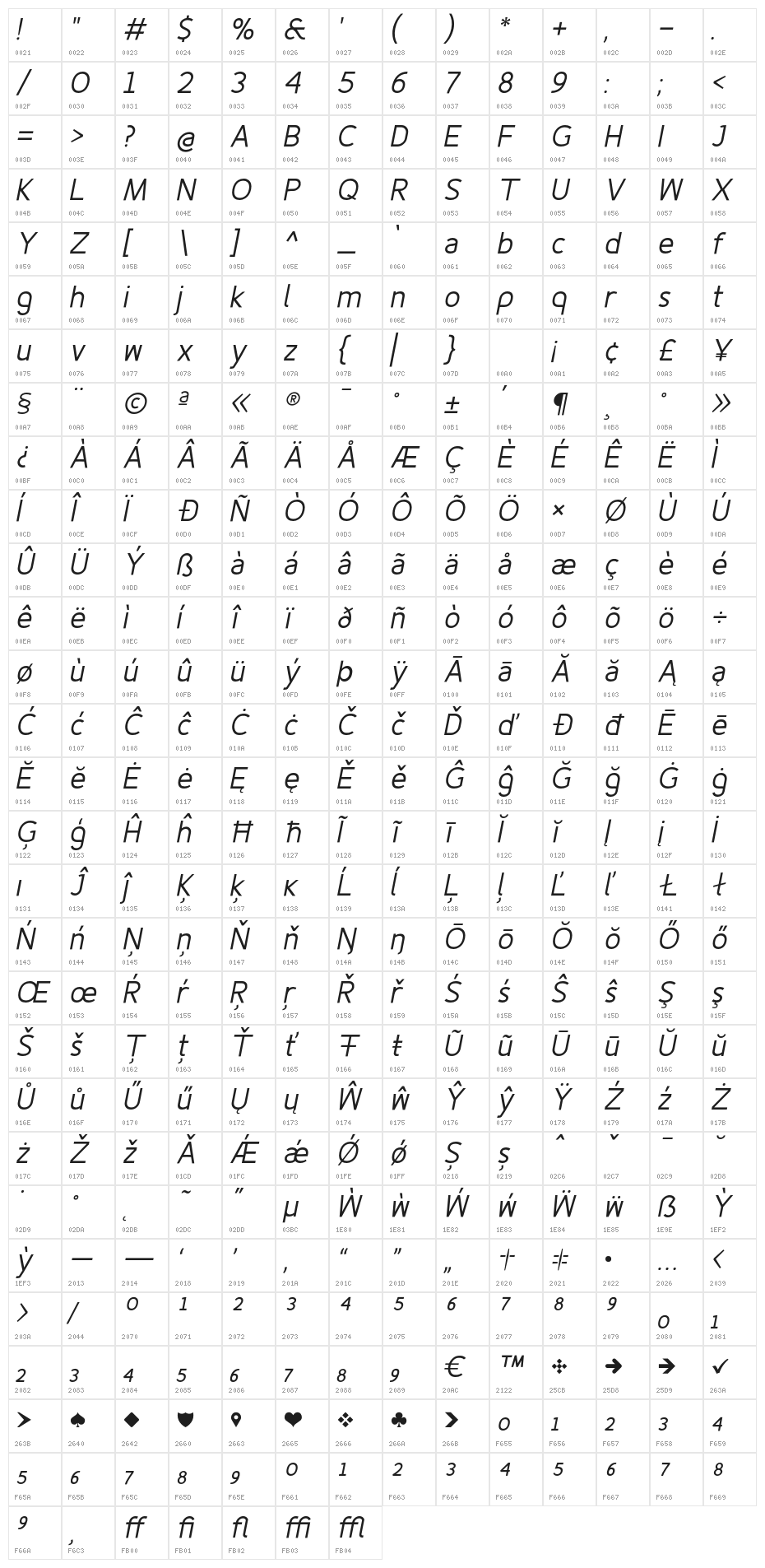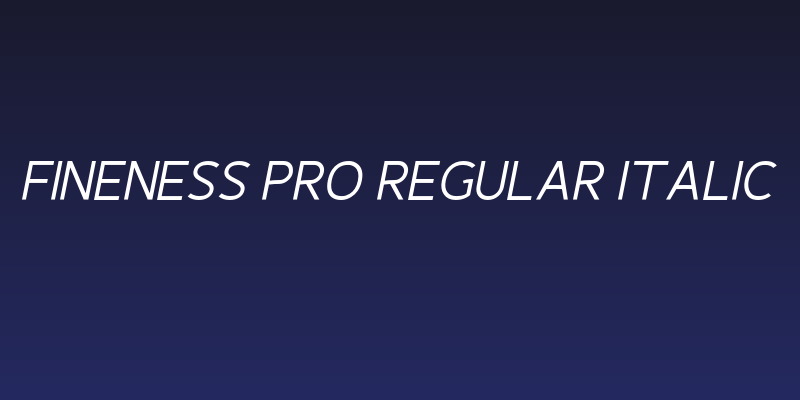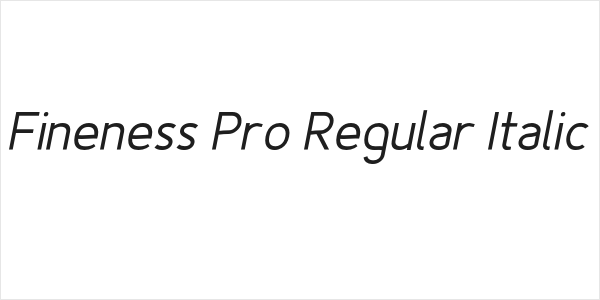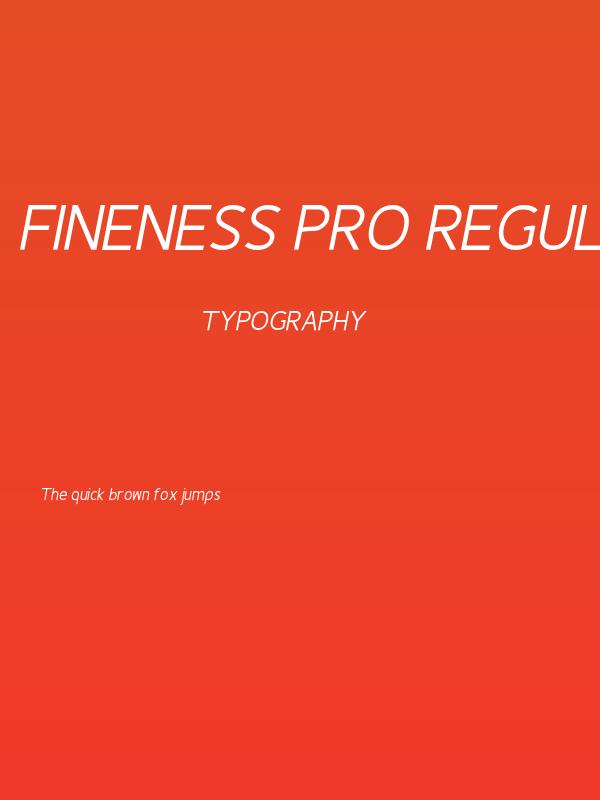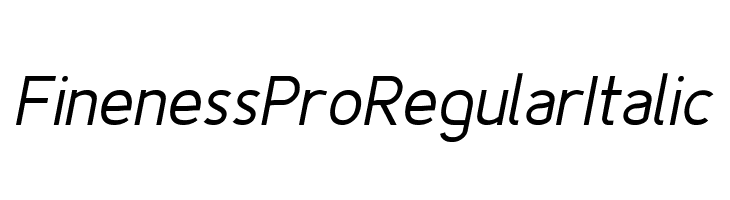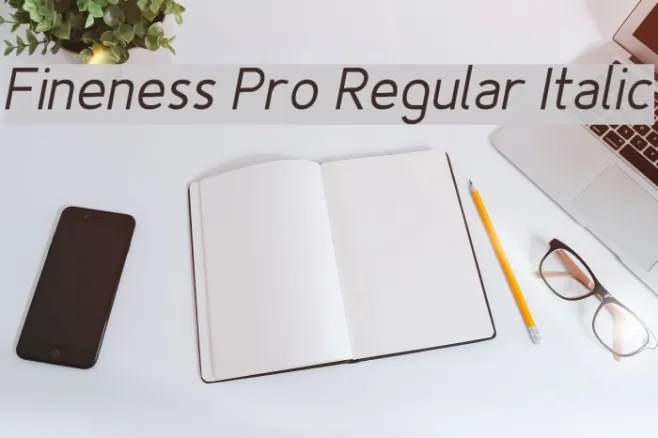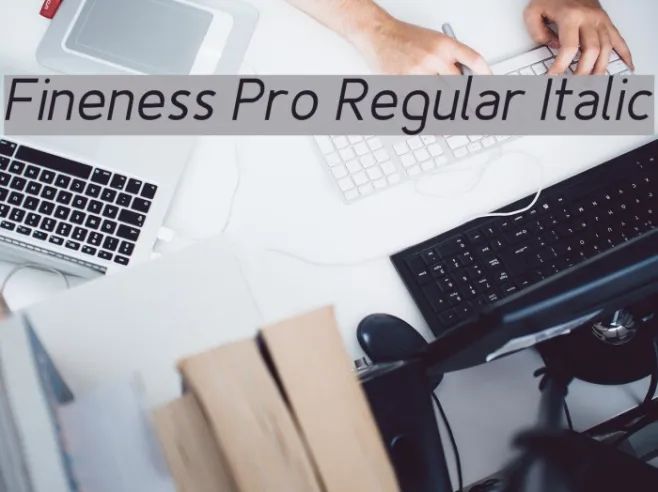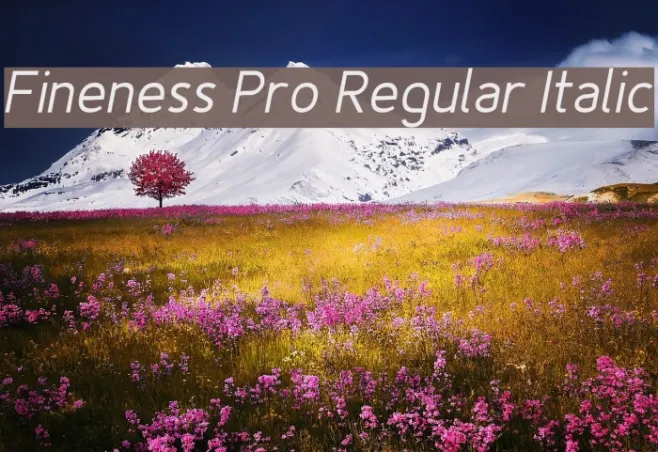
Fineness Pro Regular Italic Font
Fineness Pro Regular Italic Description
This font exhibits a sleek and modern design with a clean and professional appearance. The characters are slightly slanted, indicating an italic style, which adds a dynamic and elegant touch. The strokes are consistent and smooth, with a medium contrast that ensures readability while maintaining a stylish look. The font is well-suited for digital and print media, offering versatility across various applications. Its balanced proportions and clear legibility make it ideal for both headlines and body text. The character spacing is normal, providing a harmonious flow between letters.
| Use Case | Headlines, Body text, Logos |
| Proposed Projects | Ideal for corporate branding, editorial design, digital interfaces, and advertising materials. |